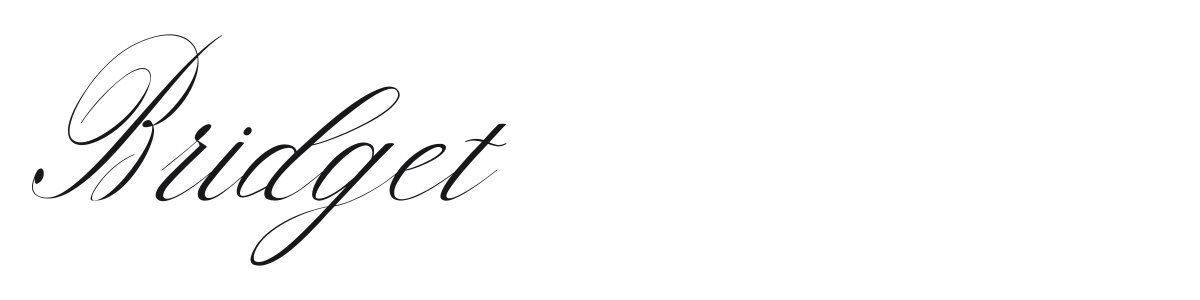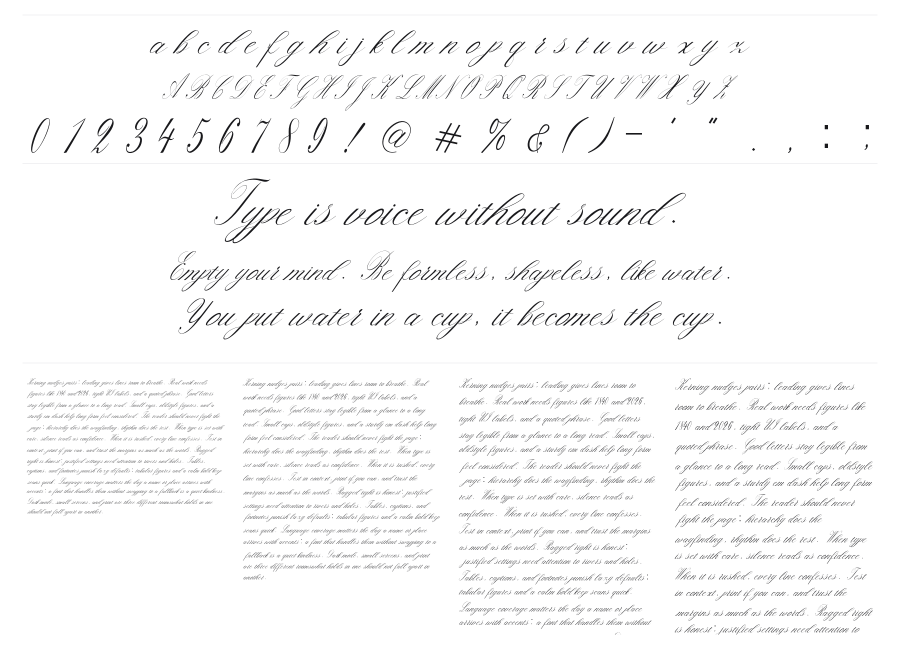
Bridget
Bridget is a modern calligraphy script from Serdaribut Studio built on high-contrast strokes and sweeping swash details. Thin hairline upstrokes meet full-bodied downstrokes in the copperplate tradition, giving the design a handcrafted yet polished quality. It carries the kind of romantic weight that works well on wedding invitations, perfume packaging, and editorial headlines.